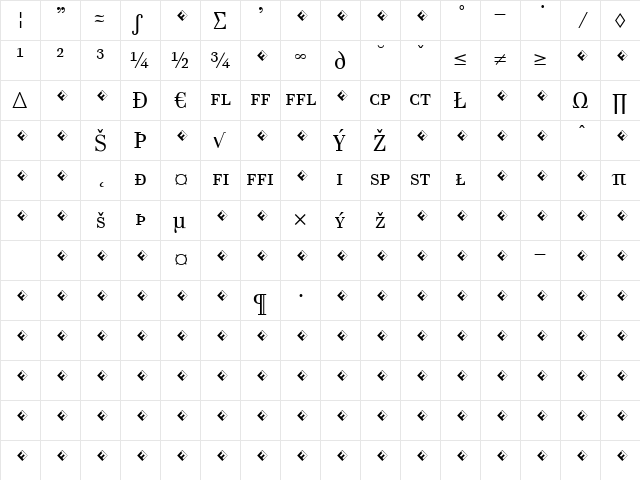
Cellini-RegularSCExpert Regular
| Foundry | Albert Boton, published by FontShop International for the FontFont Library |
| Designer | Albert Boton |
Design Context for Cellini-RegularSCExpert Typeface
Cellini-RegularSCExpert takes a measured approach to typography — its balanced proportions and neutral character make it a reliable workhorse for both digital and print work.